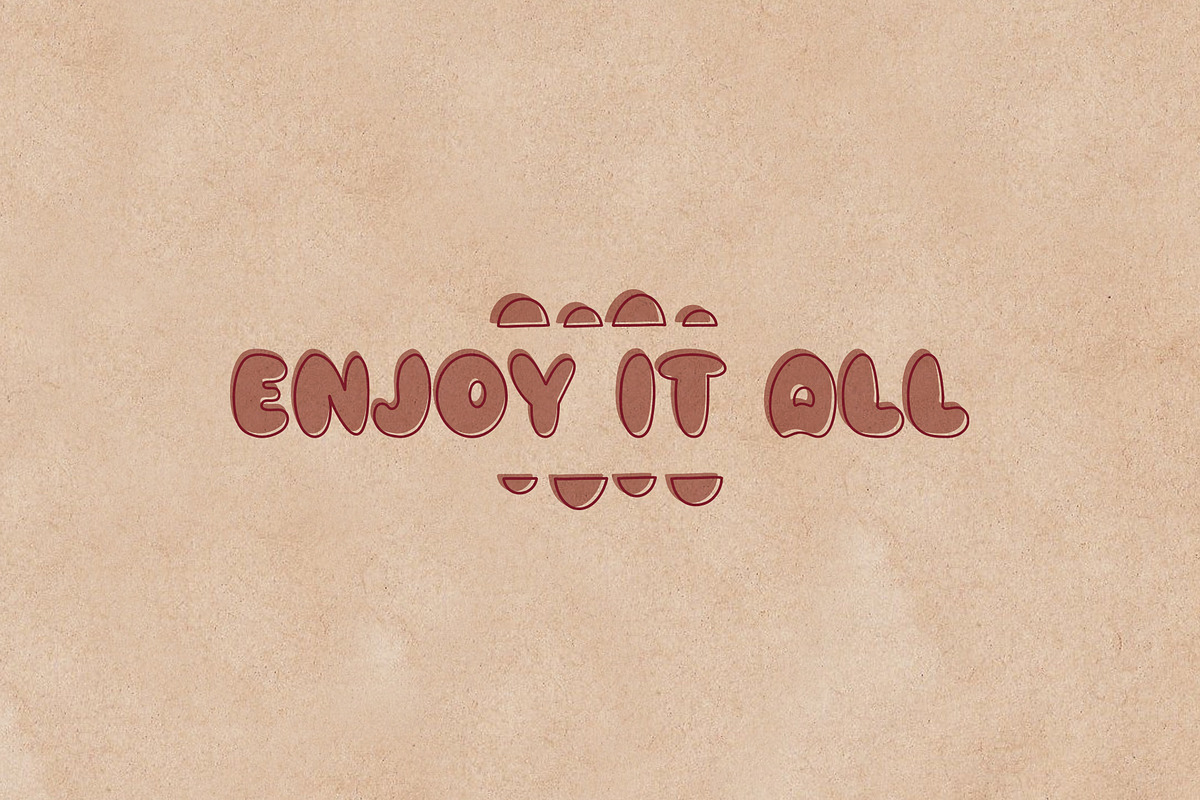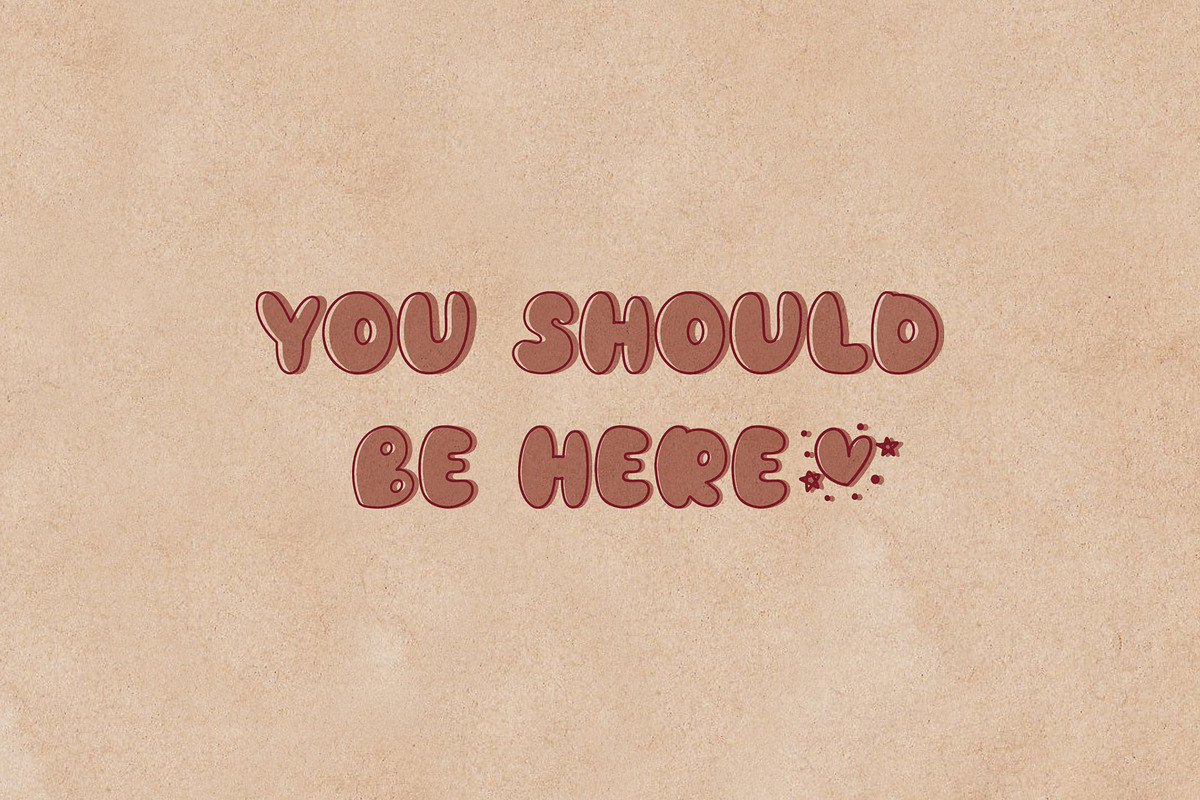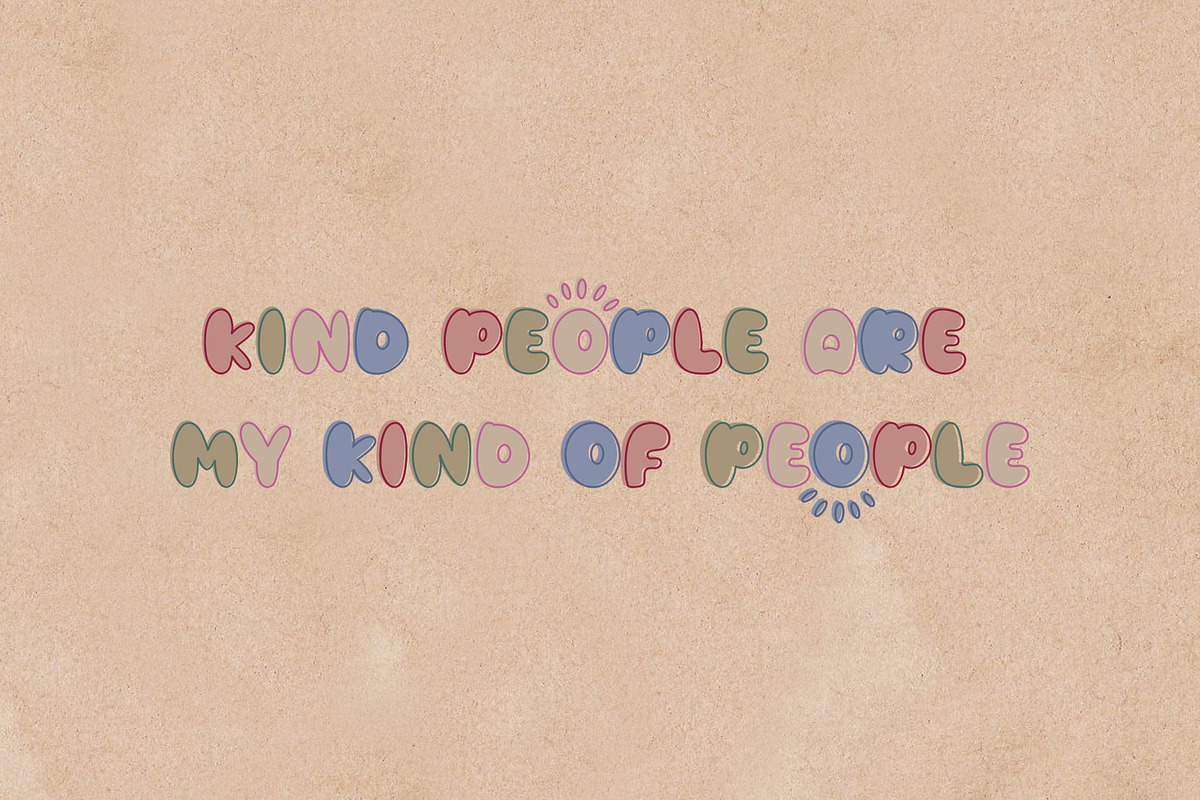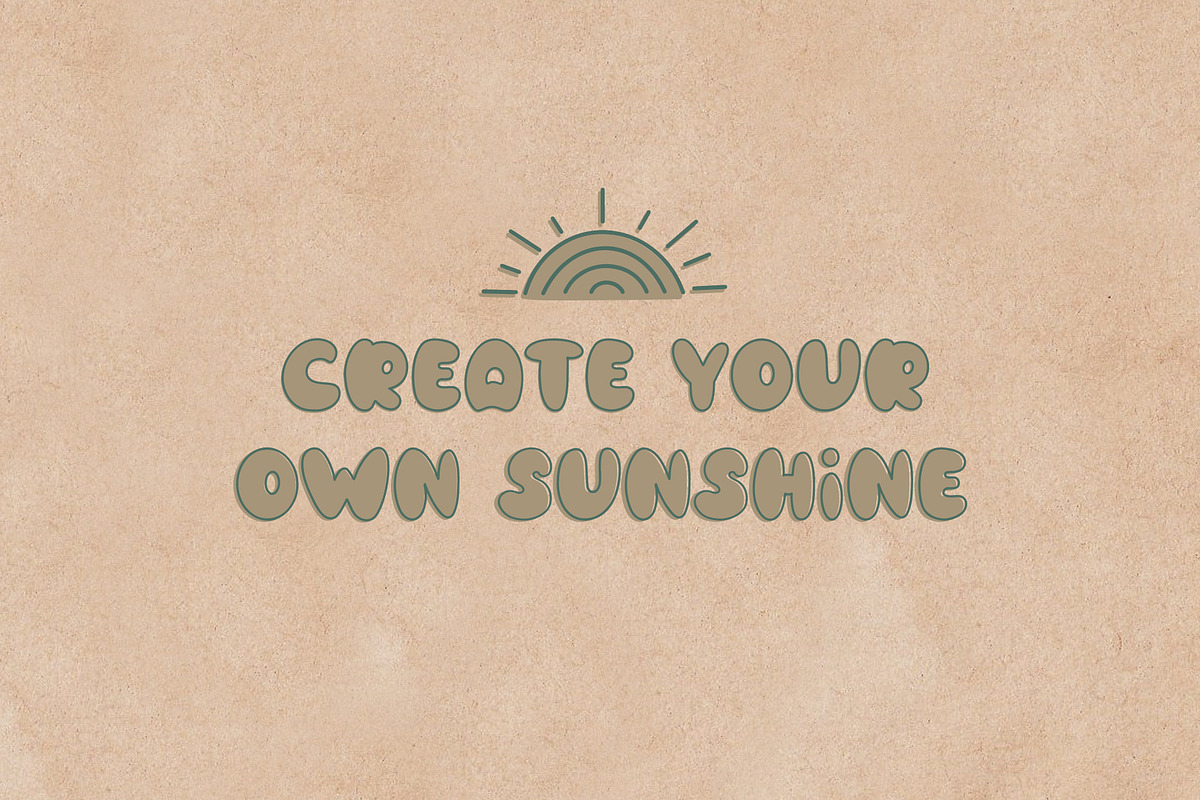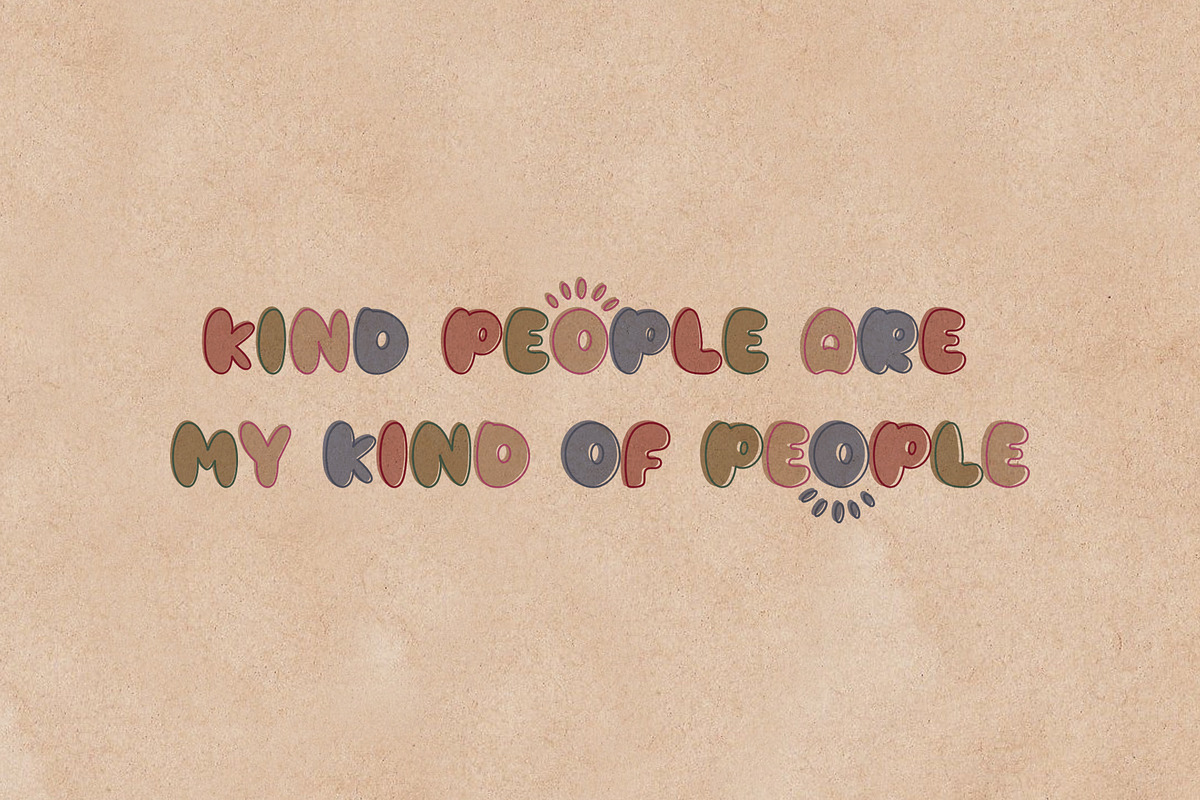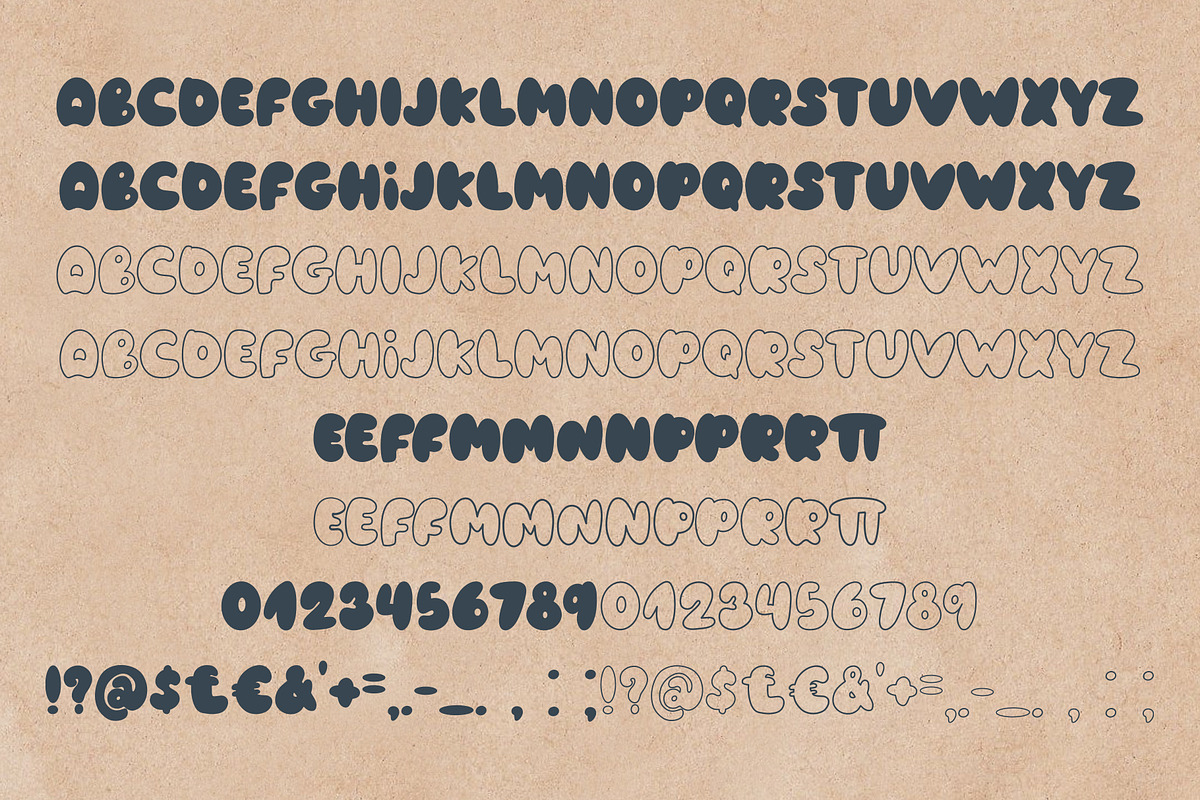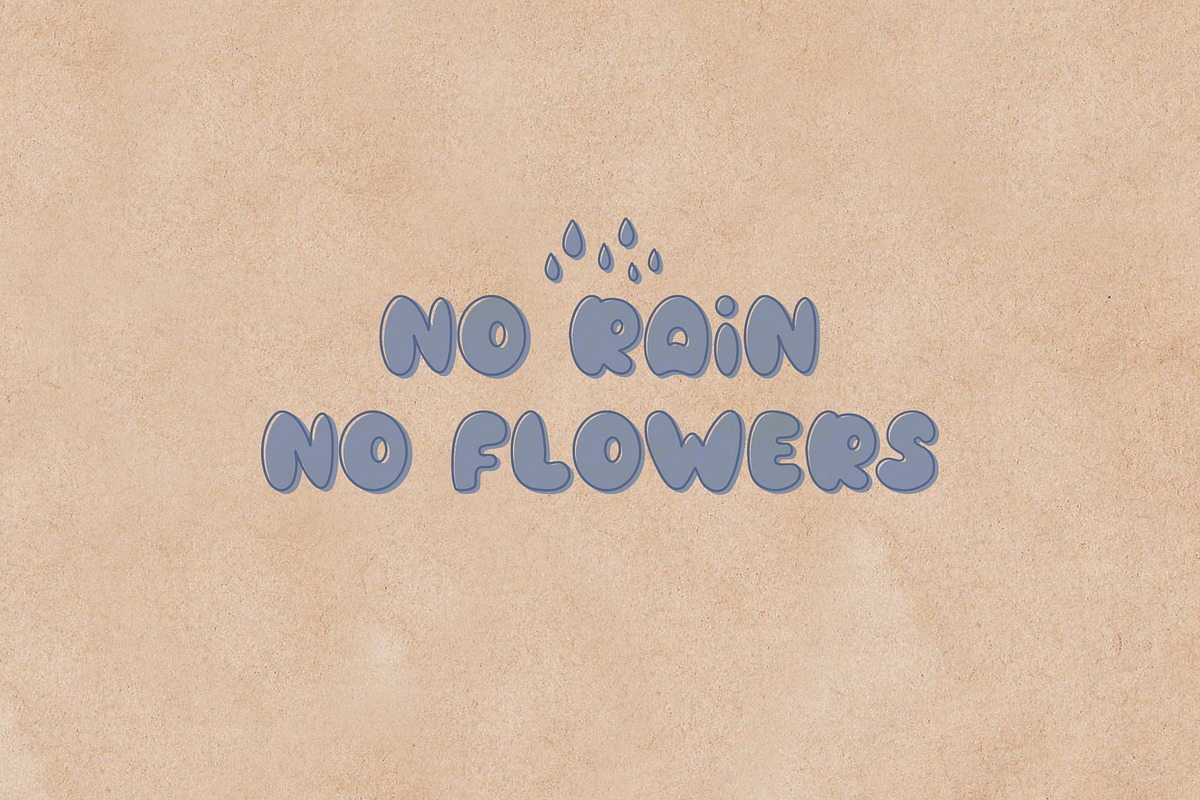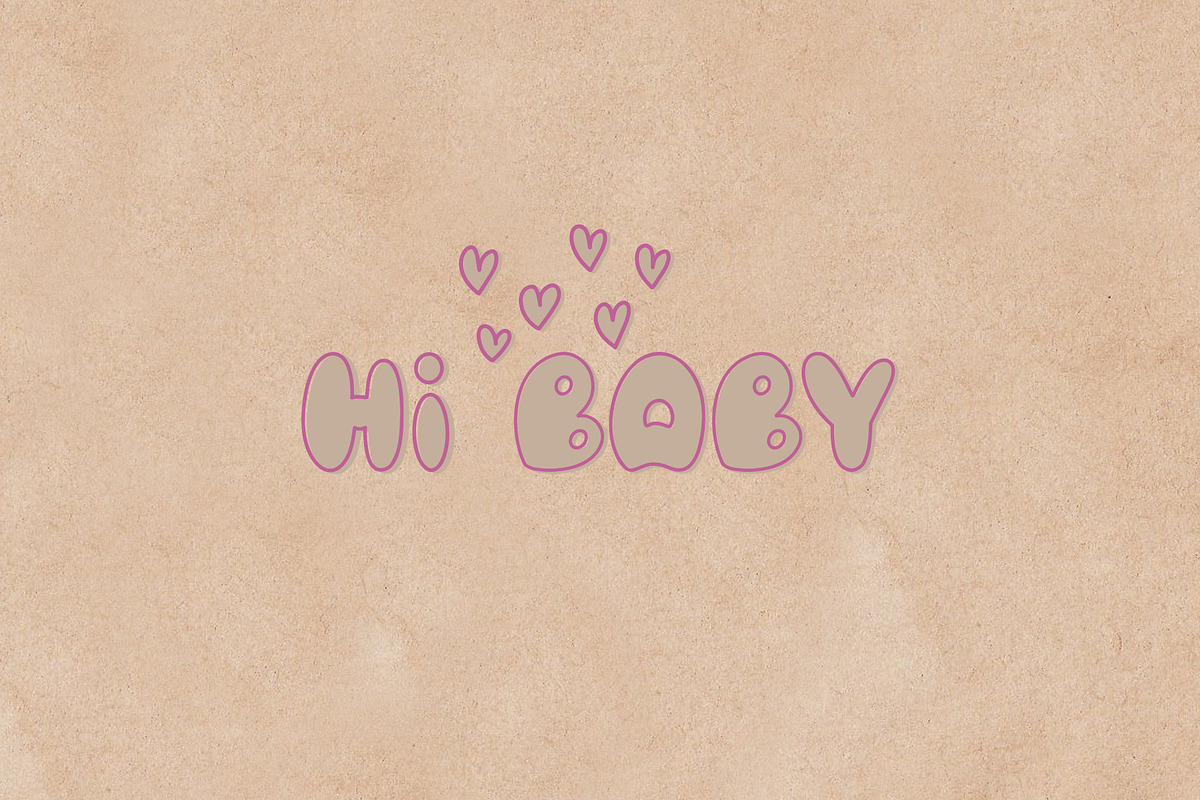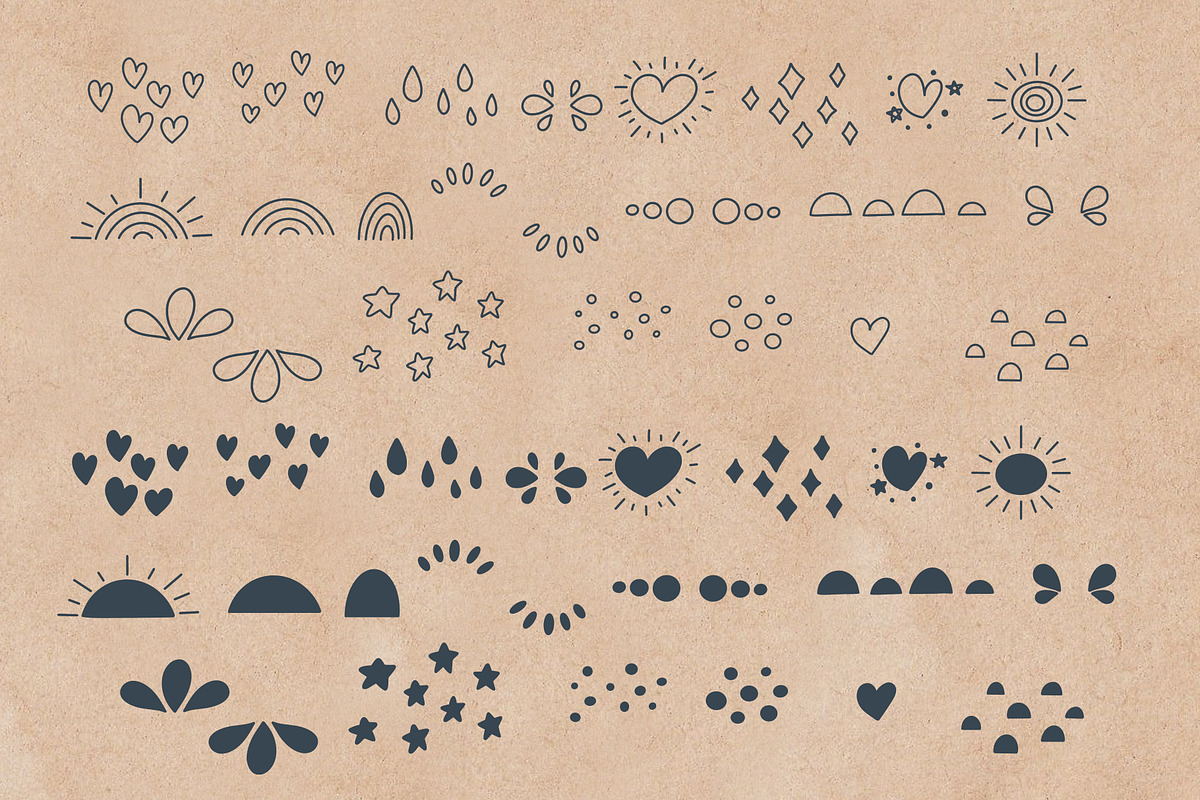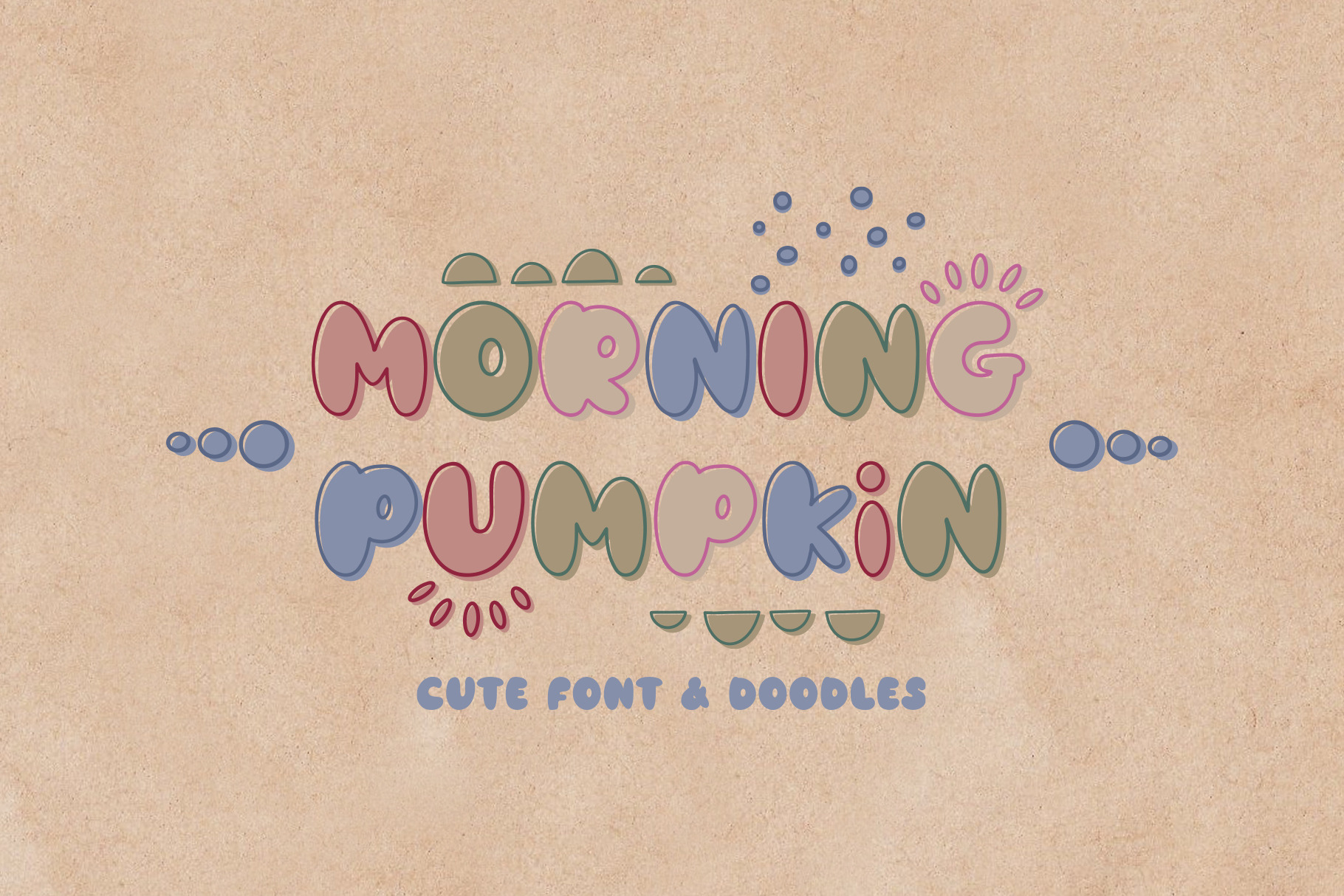
Morning Pumpkin Font & Doodles
Morning Pumpkin Font & Doodles - it's a cute simple font with doodles. Perfect for logos, social media, projects like cards, mugs and tshirt design.